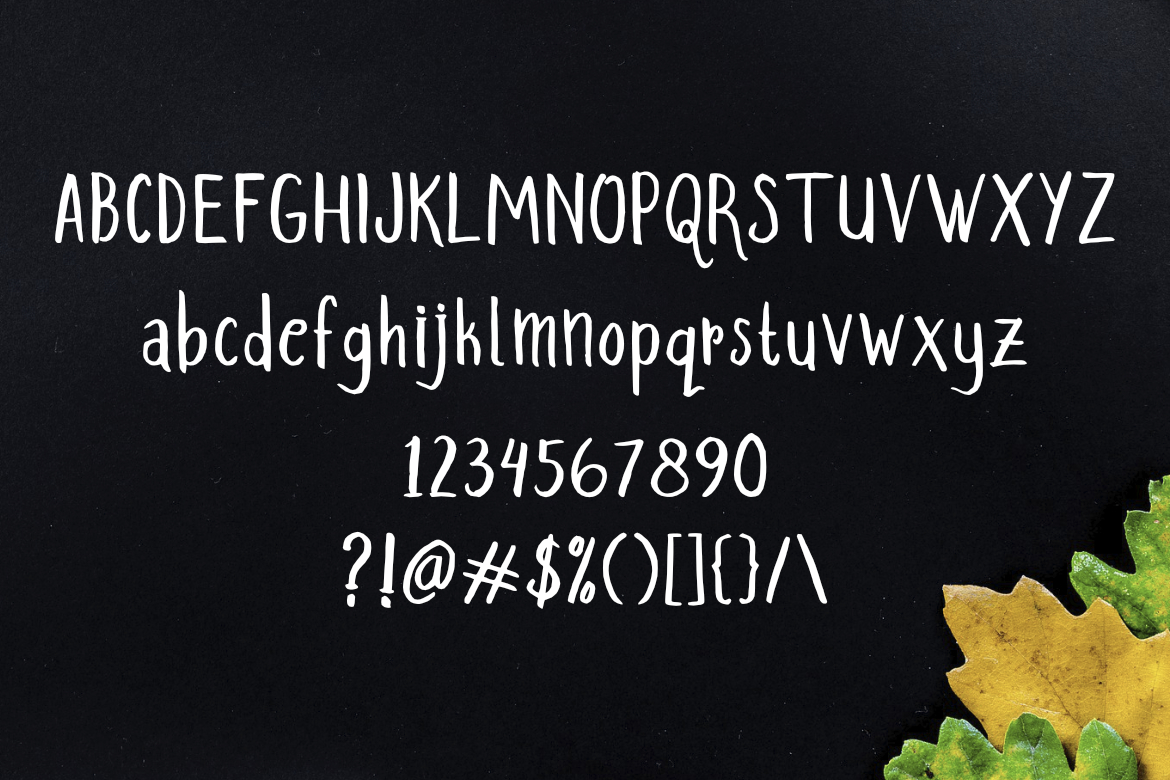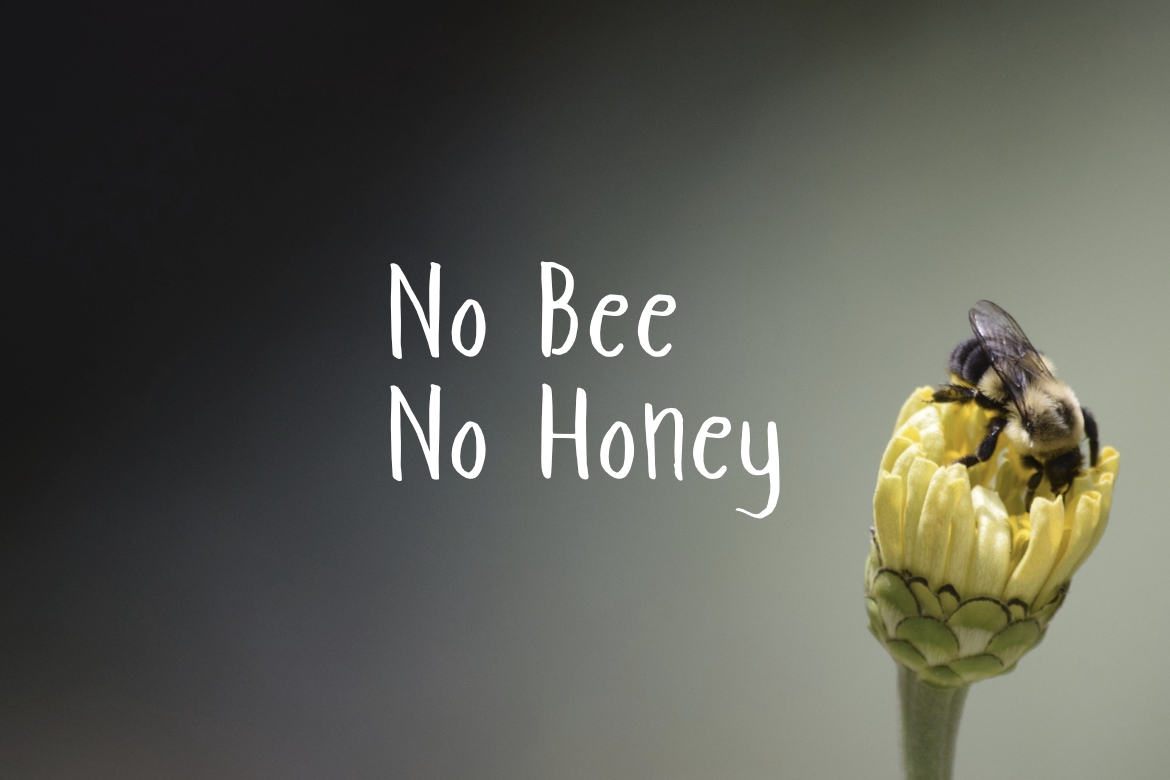
Introduction to Luv Honey Font
As a designer, there’s nothing quite like the thrill of landing on the perfect font for your next project. It’s like stumbling upon a hidden treasure that instantly elevates your work from good to great. And for those seeking a font that exudes a carefree, handwritten charm, the Luv Honey Font is sure to be a game-changer.
Imagine a font that’s as easy to use as it is to love, with its simple sans serif design and high-quality typography that’s sure to add a touch of whimsy to any creative project. With the Luv Honey Font, you can say goodbye to bland designs and hello to a world of possibilities. And the best part? This fantastic font is available for a free download, making it an absolute must-have for any designer looking to take their work to the next level.
Key Features of Luv Honey Font
- High-quality design for creative projects, perfect for artists and designers.
- Designed to be highly legible, making it perfect for use in a variety of creative projects, from digital art to print design.
Honest Review: Luv Honey Font
I recently had the chance to work with the Luv Honey Font, and I must say it’s a great addition to my design resource library. One of the things that stood out to me was its high quality and smooth texture. The transparent background makes it easy to integrate into any creative project.
Here are some things that work well with the Luv Honey Font:
- Unique design that adds a touch of whimsy to any project
- Smooth, high-quality texture that looks great at various font sizes
- May not be suitable for formal or corporate designs
- Some users may find the font too playful or distracting
- Does not come with a comprehensive character set
Overall, I’m impressed with the Luv Honey Font, and I think it’s a great resource for designers looking for a unique and creative font. While it may have some limitations, it’s a great addition to any design library. ✨
The Luv Honey Font is perfect for a variety of creative projects, including wedding invitations, business cards, and social media graphics. Its high quality and transparent background make it a great choice for adding a touch of sophistication to your designs.